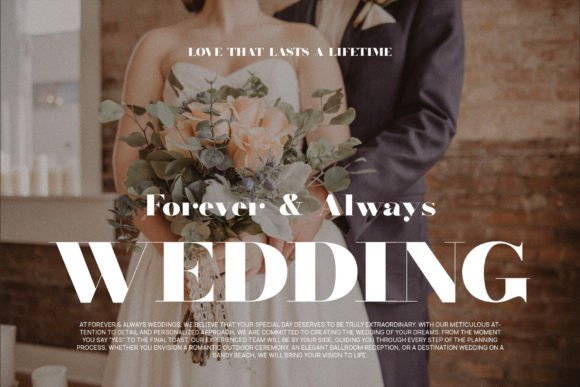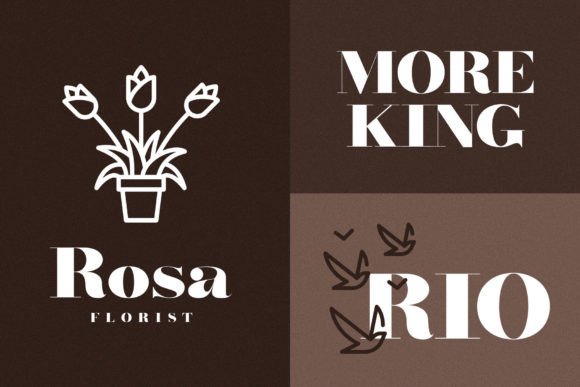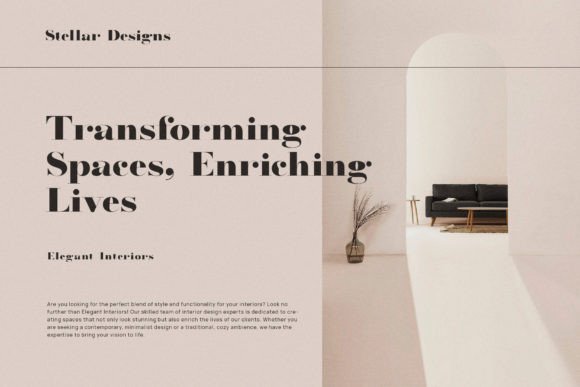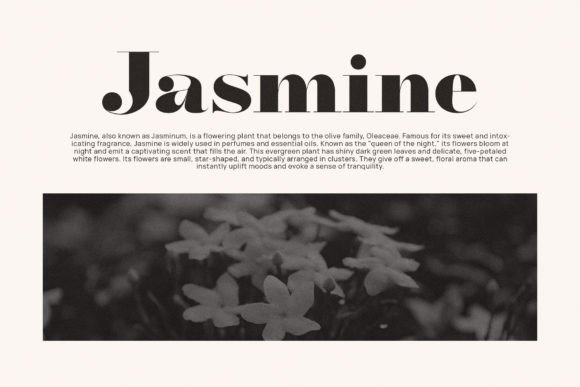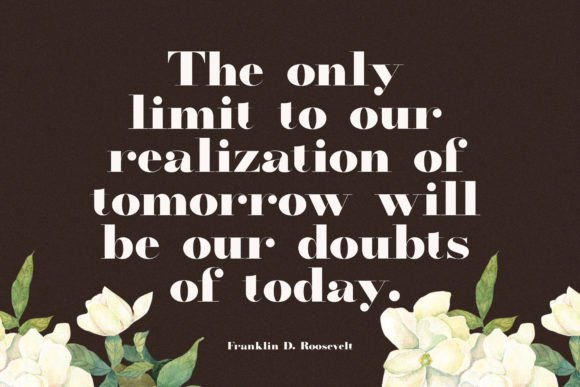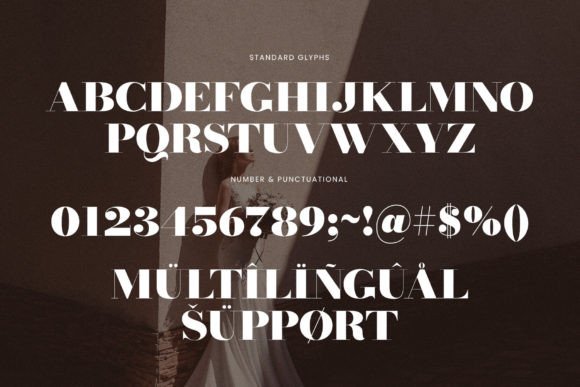
Introducing Arif Font: The Elegant Serif Typeface for Modern Design Needs
In the world of typography, a well-crafted font can elevate a design from ordinary to extraordinary. For designers and crafters seeking a typeface that exudes elegance, sophistication, and modernity, Arif Font is an excellent choice. This elegant serif typeface combines a classy and modern style, making it perfect for a wide range of design projects.
What Makes Arif Font Stand Out?
Arif Font boasts a unique blend of traditional and contemporary elements, making it an versatile typeface suitable for various design applications. Its elegant serif design ensures high readability, while its modern style adds a touch of sophistication to any project. Whether you’re working on branding projects, logos, wedding designs, social media posts, advertisements, product packaging, product designs, labels, photography, watermarks, invitations, stationery, or any other creative endeavor, Arif Font is an excellent choice.
Key Features of Arif Font
- Elegant Serif Design: Arif Font features a beautiful serif design that adds a touch of elegance to any project.
- Modern Style: The font’s modern style ensures that your designs look contemporary and fresh.
- High Readability: Arif Font is designed with readability in mind, making it perfect for body text and headlines.
- Versatile: The font is suitable for a wide range of design projects, from branding and advertising to wedding designs and product packaging.
Why Choose Arif Font for Your Design Projects?
With Arif Font, you can add a touch of sophistication and elegance to your designs. Its versatility and high readability make it an excellent choice for designers and crafters who want to create stunning visual content. Here are some reasons why you should consider using Arif Font for your next project:
- Enhance Your Brand’s Visual Identity: Use Arif Font to create a consistent visual brand identity that exudes elegance and sophistication.
- Stand Out in a Crowded Market: With Arif Font, you can create designs that stand out from the competition and grab the attention of your audience.
- Save Time and Effort: The font’s high readability and versatility save you time and effort in selecting and pairing fonts for your designs.
How to Use Arif Font in Your Design Projects
Using Arif Font in your design projects is easy. Here are some tips to get you started:
- Pair it with Other Fonts: Experiment with pairing Arif Font with other fonts to create a unique and visually appealing typography.
- Use it for Headlines and Body Text: Use Arif Font for both headlines and body text to create a consistent and elegant look.
- Customize it to Fit Your Brand: Adjust the font size, color, and style to fit your brand’s visual identity.
In conclusion, Arif Font is an elegant serif typeface that combines a classy and modern style, making it perfect for a wide range of design projects. Its high readability, versatility, and sophistication make it an excellent choice for designers and crafters who want to create stunning visual content. Whether you’re working on branding projects, logos, wedding designs, or social media posts, Arif Font is a great choice. Try it out today and elevate your designs to the next level!